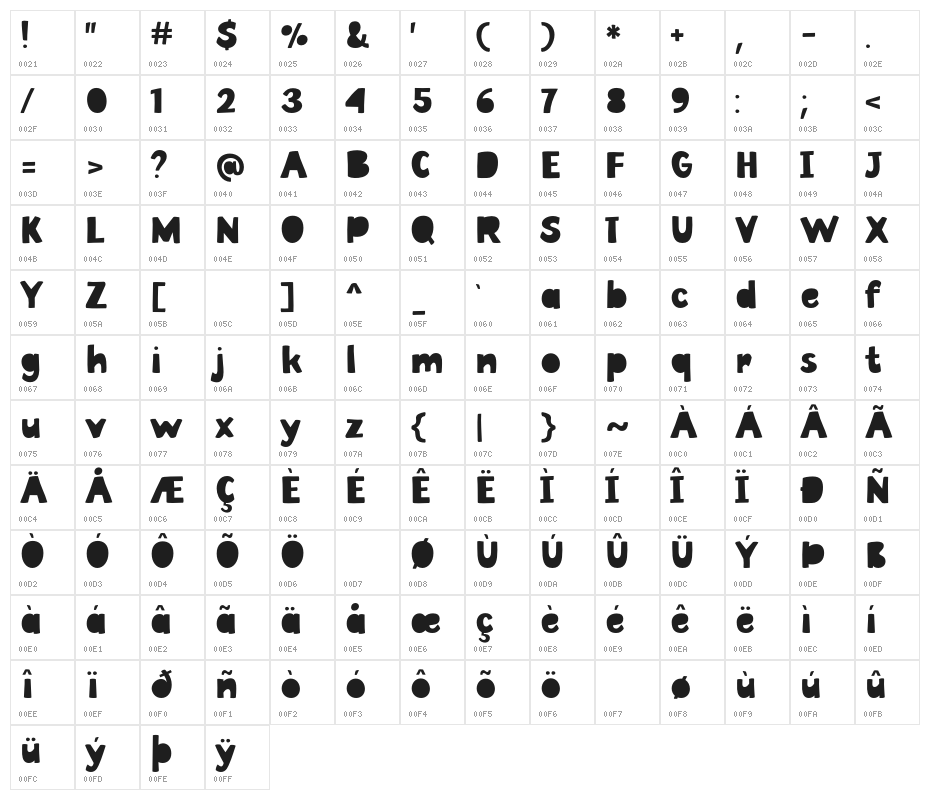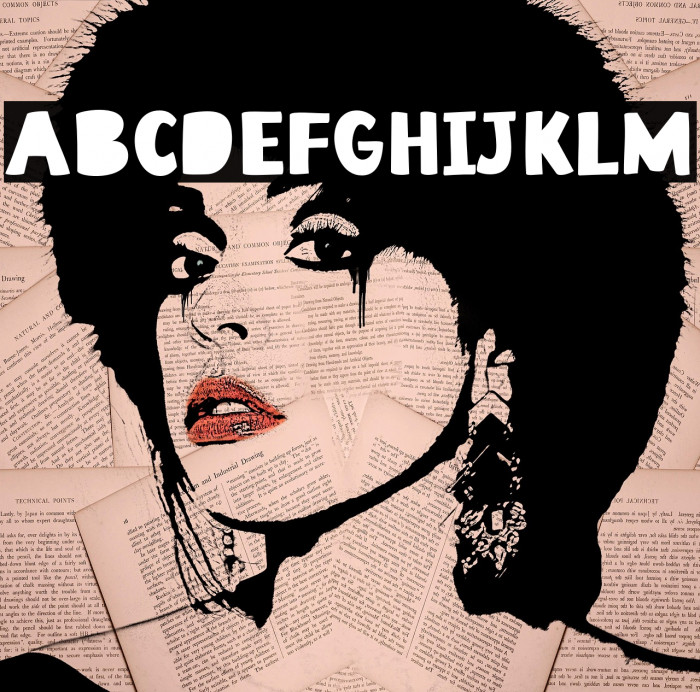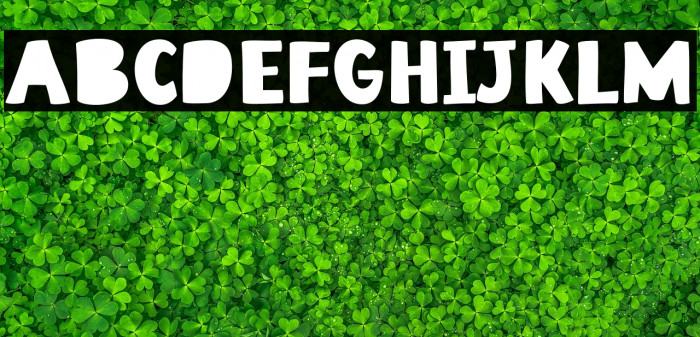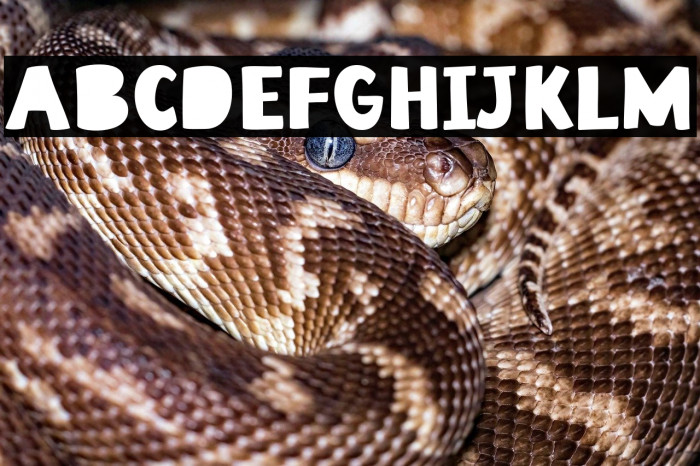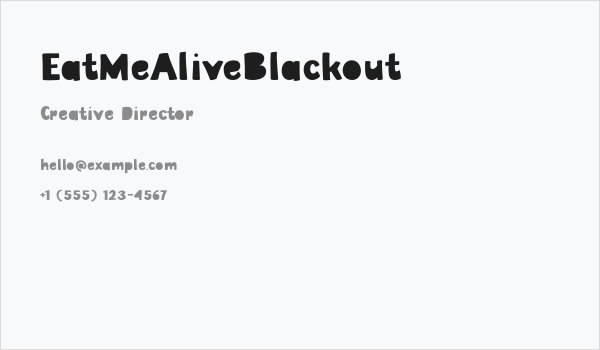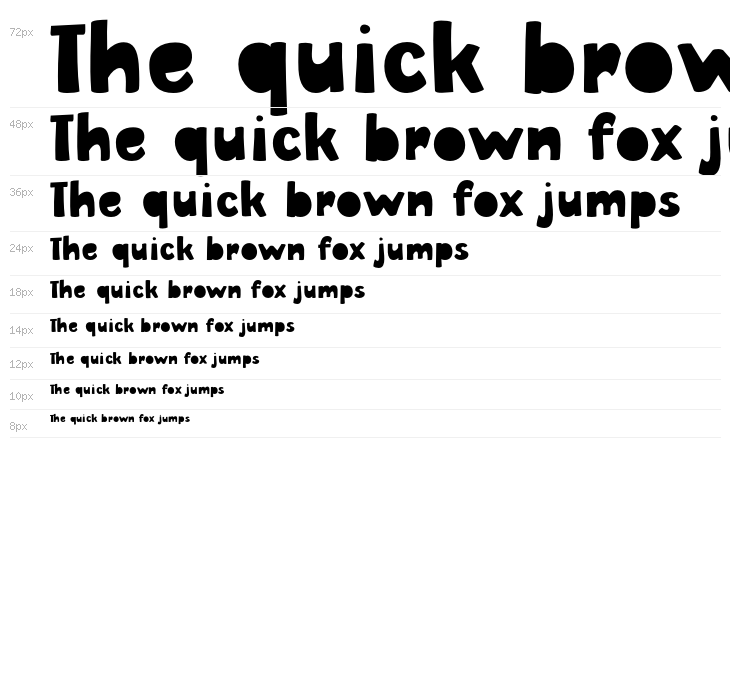
EatMeAliveBlackout Font
EatMeAliveBlackout Description
A playful, bold display typeface with irregular, chunky letterforms and a hand-drawn, slightly whimsical feel. The characters have uneven edges and varying stroke widths, giving it a lively and informal appearance.
| Overall Style | Playful, Decorative, Hand-drawn |
| Use Case | Headlines, Posters, Logos, Children's materials |
| Proposed Projects | Children's books, posters, party invitations, comic titles, playful branding. |